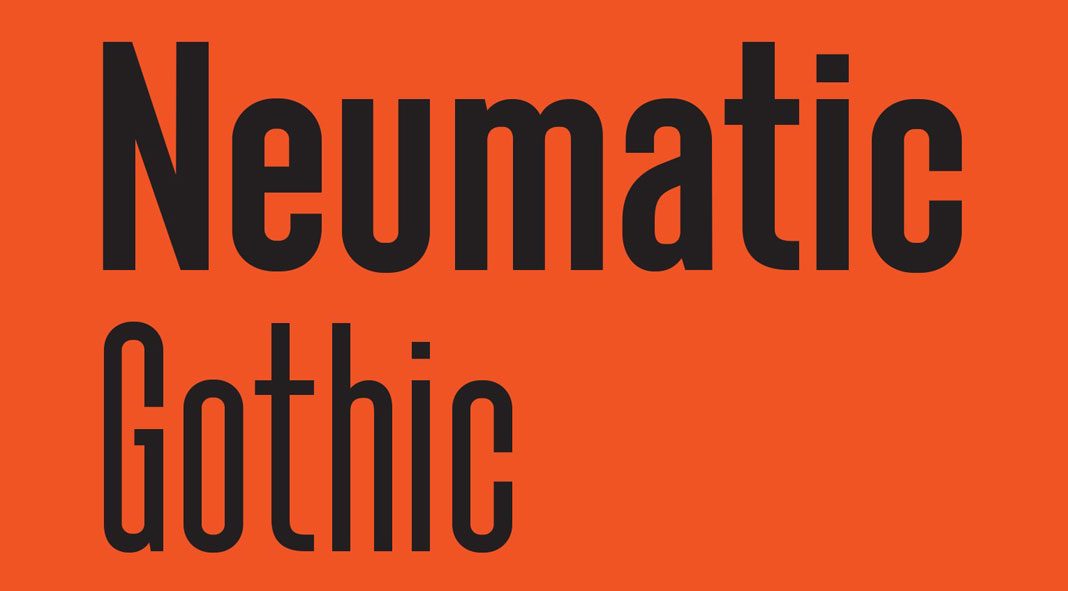
Neumatic Gothic, a condensed sans-serif font family designed by Andrew Footit of foundry Arkitype.
Based on a condensed sans-serif typeface with a tall cap height and an x-height that keeps the design in balance, Neumatic Gothic is a versatile font family that can be used for both headlines and text sections of all sizes and lengths. It is equipped with a bunch of typographic options, which makes it fun to play and experiment with all the different features. For instance, the family comes with stylistic uppercase superscripts, stylistic alternates, and circled numbers, just to name a few. The typeface was made by Andrew Footit especially for graphic designers to give them a font family with numerous typographic features for different designs. To learn more, just click on one of the following links or have a look at the images below.